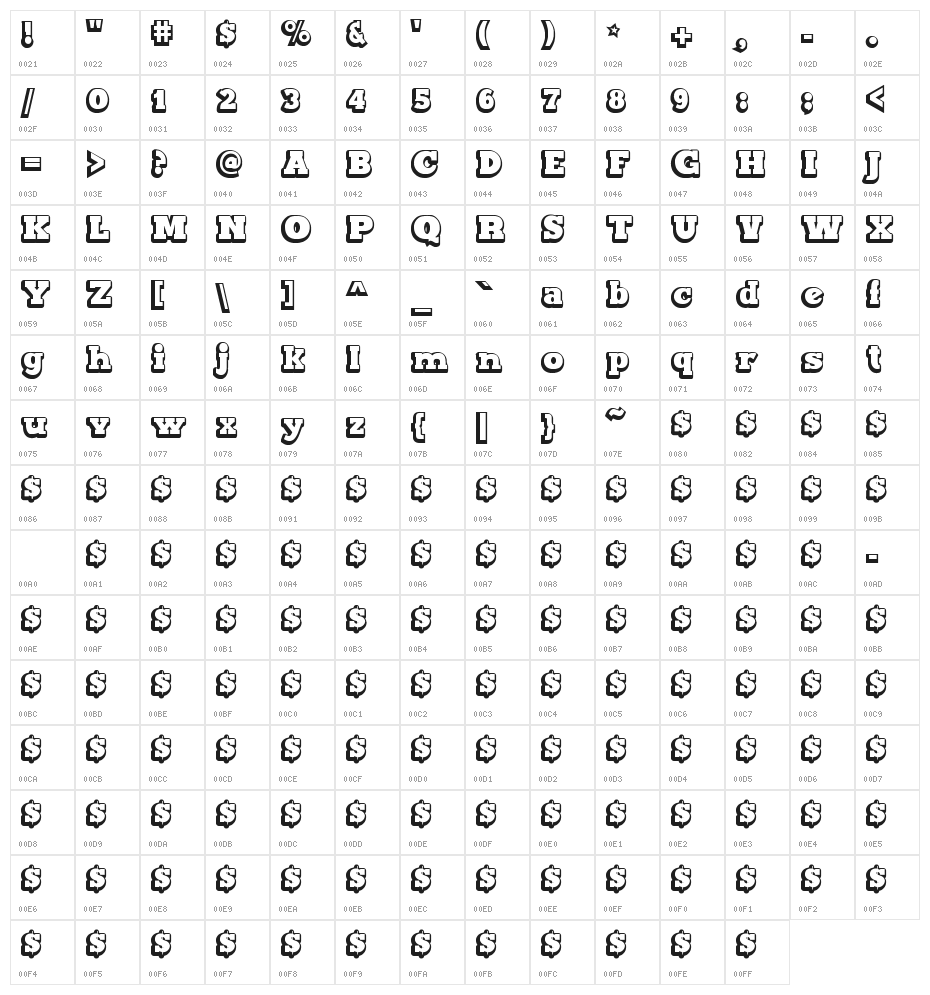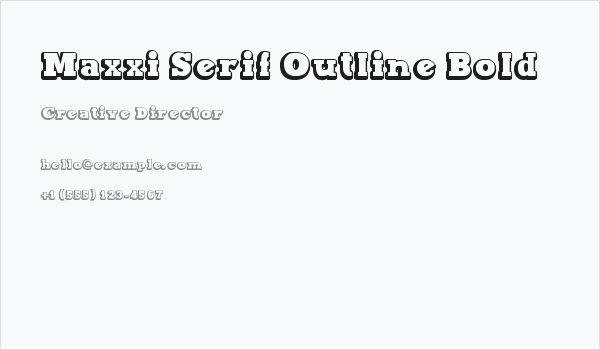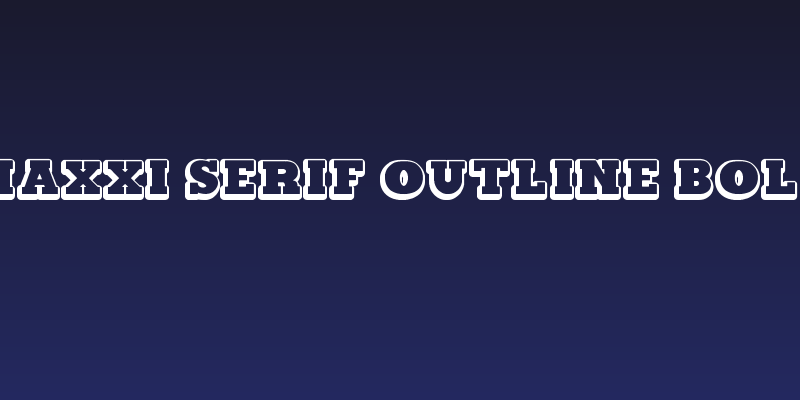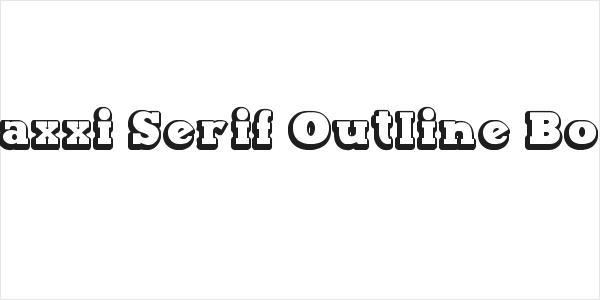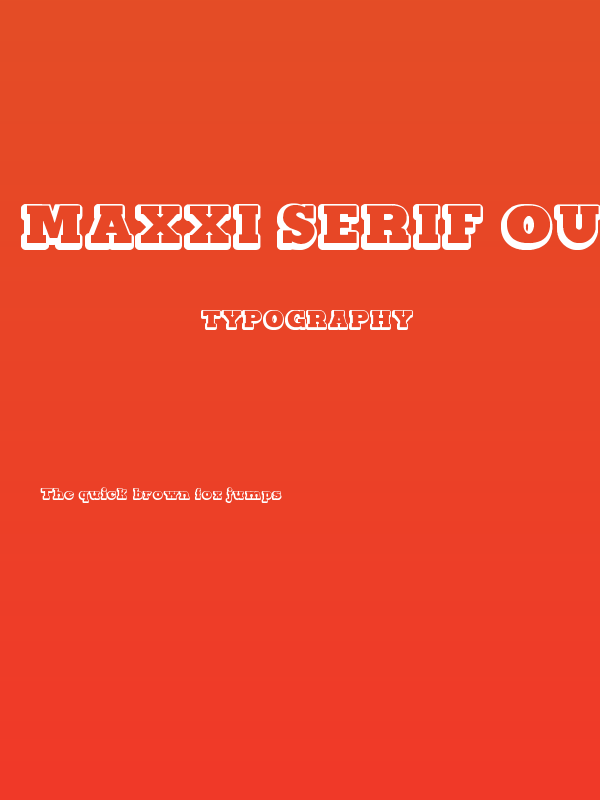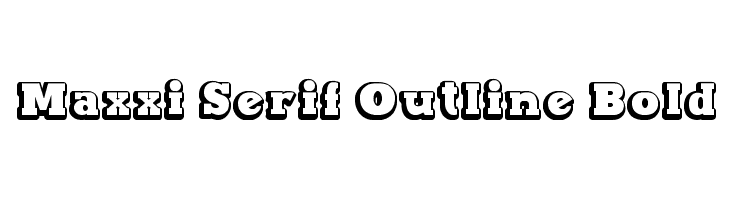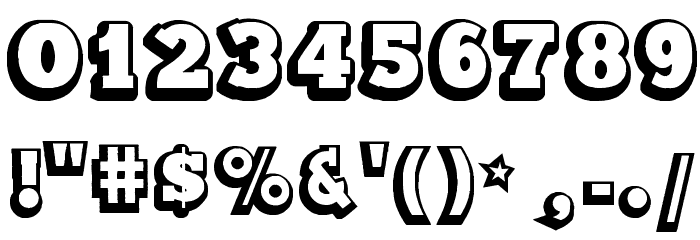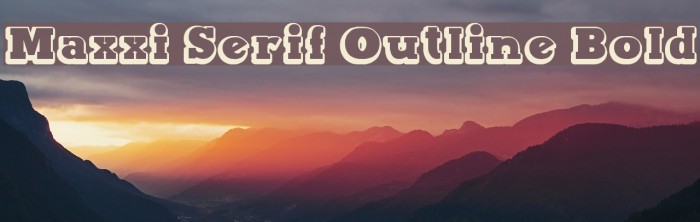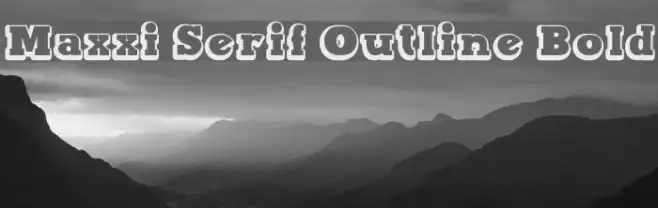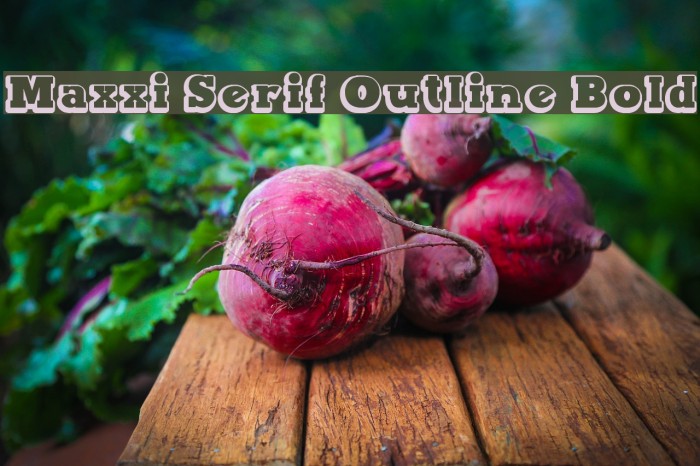
Maxxi Serif Outline Bold Font
Maxxi Serif Outline Bold Description
This font features a bold and striking serif style with an outline effect that enhances its visual impact. The uppercase and lowercase letters maintain a consistent weight, providing a strong presence on the page. The numbers and special characters are equally bold, ensuring uniformity across all elements. The serifs are prominent, adding a classic touch to the overall modern design. The outline adds depth, making it suitable for eye-catching headlines and titles. The character spacing is normal, allowing for clear readability despite the boldness. This font is ideal for projects that require a combination of traditional serif elegance with a contemporary twist.
| Proposed Projects | Ideal for posters, logos, branding materials, and any design requiring a bold statement. |